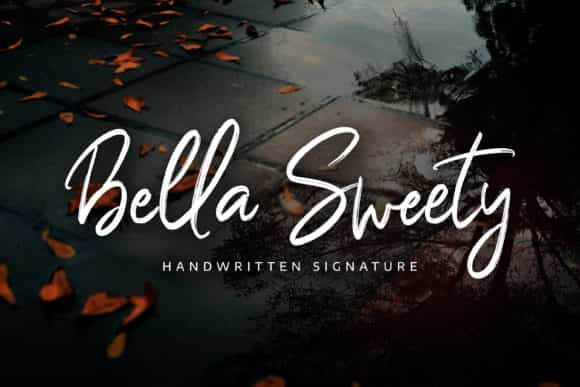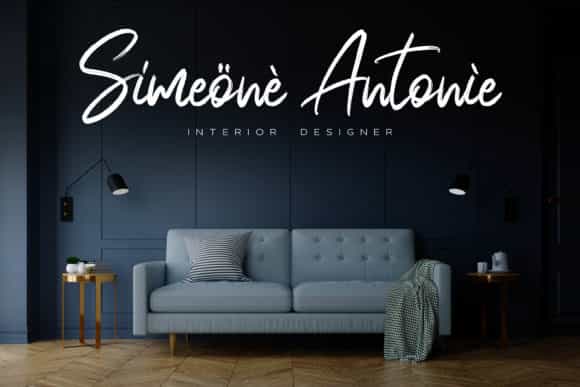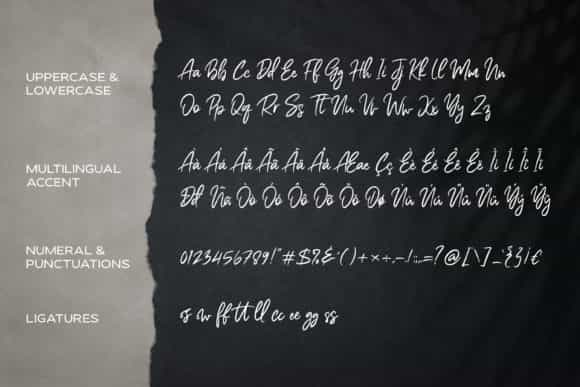
Say hello to Bella Sweety Font. A casual pen brush handwriting typeface inspired by dry brush strokes infused with summer vibes. Ideal, for purposes such as logos, quotes, invitations, signage, posters, websites, greeting cards, packaging, headers, printed quotes, album covers and more.